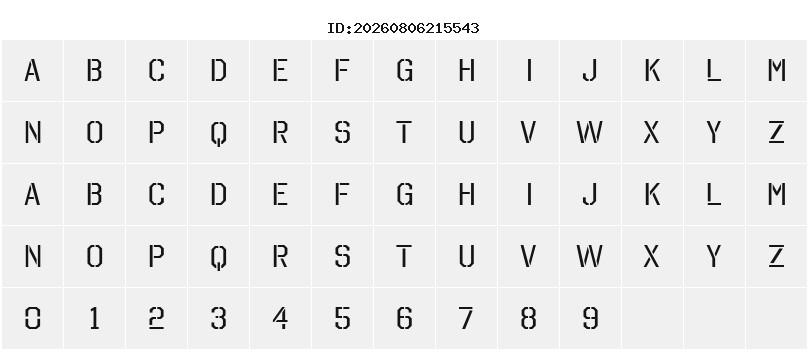
• Font Name: Octin Stencil Free
• Full Font Name: Octin Stencil Free
• Designer: Ray Larabie
• Manufacturer: Ray Larabie
About Octin Stencil Free.ttf
Octin Stencil Free.ttf is a modern, elegant sans-serif font designed for ultimate readability and visual harmony. Perfect for branding, headlines, web design, and print materials.